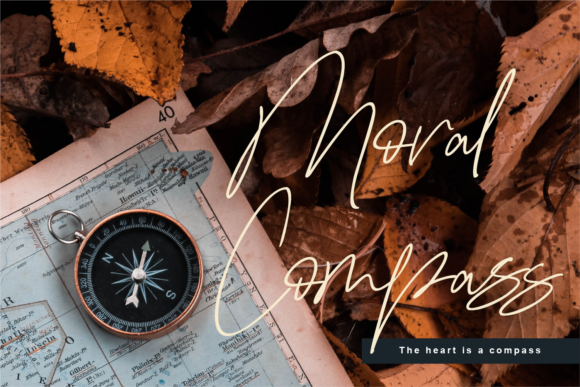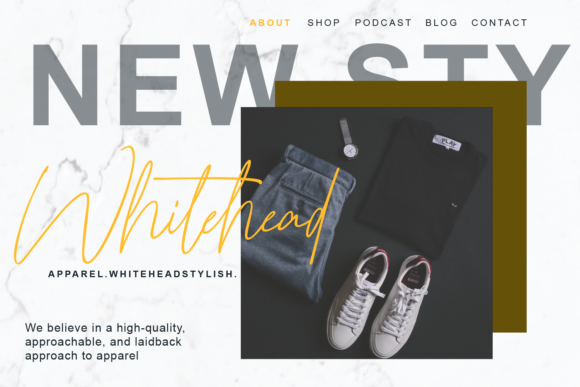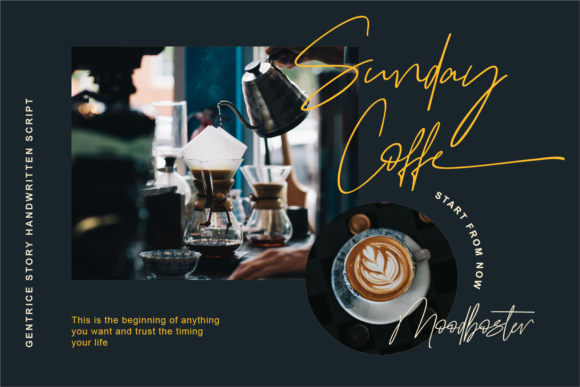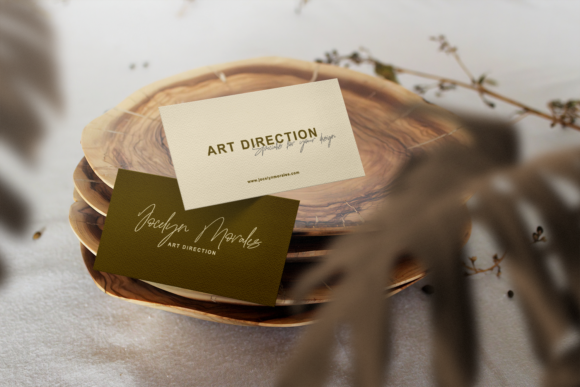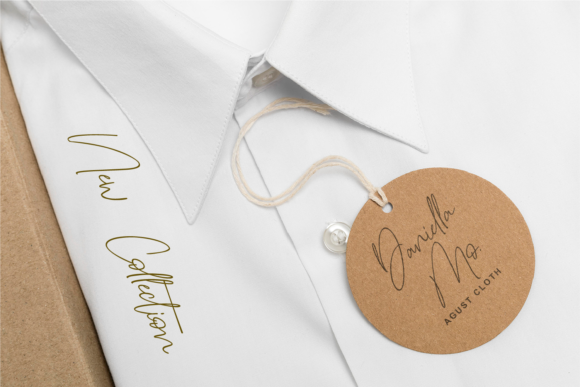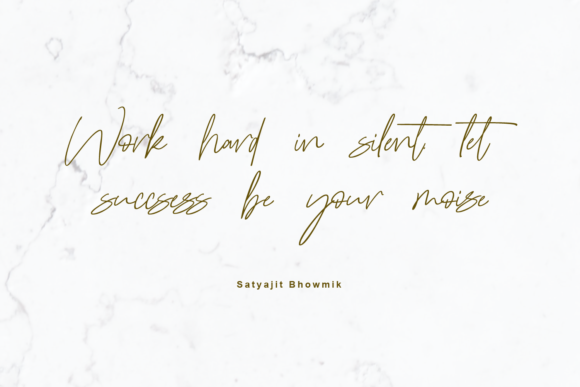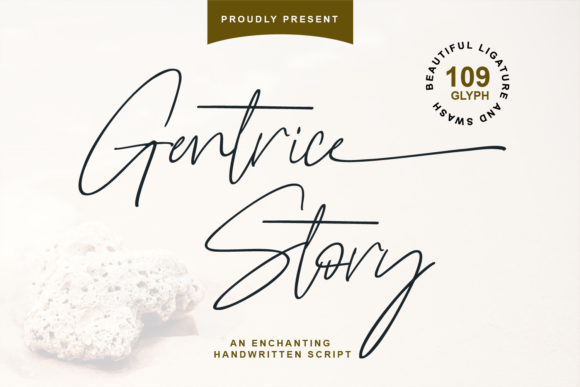
Gentrice Story Font: Elevate Your Designs with Elegance and Charm
Are you a designer or crafter looking for a font that exudes elegance and charm? Look no further than the Gentrice Story Font. This beautiful handwritten font is perfect for adding a touch of sophistication to your designs, whether you’re working on wedding invitations, business cards, or greeting cards.
A Font that Exudes Elegance and Charm
The Gentrice Story Font is a stunning script font that feels equally charming and elegant. Its flowing lines and delicate curves make it perfect for designs that require a touch of whimsy and romance. Whether you’re creating wedding invitations, thank you cards, or quotes, this font is sure to impress.
The Gentrice Story Font is versatile and can be used on a wide range of design projects. Here are some ideas to get you started:
- Wedding invitations: Add a touch of elegance to your wedding invitations with this beautiful font.
- Thank you cards: Show your appreciation with a heartfelt thank you card featuring the Gentrice Story Font.
- Quotes: Add a touch of whimsy to your quotes with this charming font.
- Greeting cards: Create beautiful greeting cards for any occasion with the Gentrice Story Font.
- Logos: Use this font to create a unique and elegant logo for your business.
- Business cards: Add a touch of sophistication to your business cards with this beautiful font.
The Gentrice Story Font is PUA encoded, which means you can access all of the glyphs and swashes with ease. This makes it easy to customize your designs and add your own personal touch.
Why Choose the Gentrice Story Font?
There are many reasons why the Gentrice Story Font is a great choice for designers and crafters. Here are a few:
- Elegant and charming: This font exudes elegance and charm, making it perfect for designs that require a touch of sophistication.
- Versatile: The Gentrice Story Font can be used on a wide range of design projects, from wedding invitations to business cards.
- Easy to use: The font is PUA encoded, making it easy to access all of the glyphs and swashes.
- Unique: The Gentrice Story Font is a unique and beautiful font that will set your designs apart from the rest.
Tips for Using the Gentrice Story Font
Here are a few tips for using the Gentrice Story Font in your designs:
- Pair it with other fonts: The Gentrice Story Font pairs well with other fonts, such as sans serif fonts or serif fonts.
- Use it for headings: The Gentrice Story Font is perfect for headings and titles, adding a touch of elegance to your designs.
- Experiment with colors: The Gentrice Story Font looks beautiful in a variety of colors, from soft pastels to rich jewel tones.
- Add swashes: The Gentrice Story Font comes with a range of swashes that you can use to add a touch of whimsy to your designs.
The Gentrice Story Font is a beautiful and elegant font that is perfect for designers and crafters. Its charming and sophisticated feel makes it ideal for a wide range of design projects, from wedding invitations to business cards. With its PUA encoding, you can easily access all of the glyphs and swashes, making it easy to customize your designs. Whether you’re looking for a font that exudes elegance and charm, the Gentrice Story Font is a great choice.